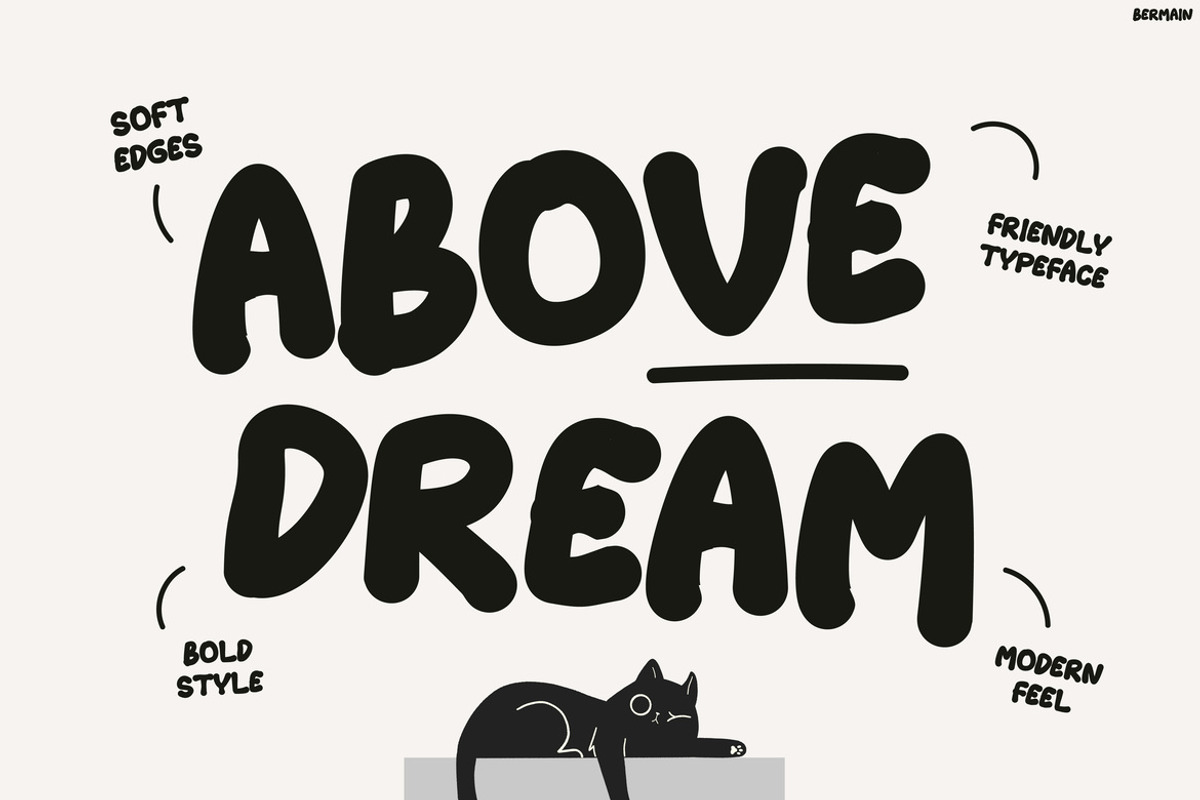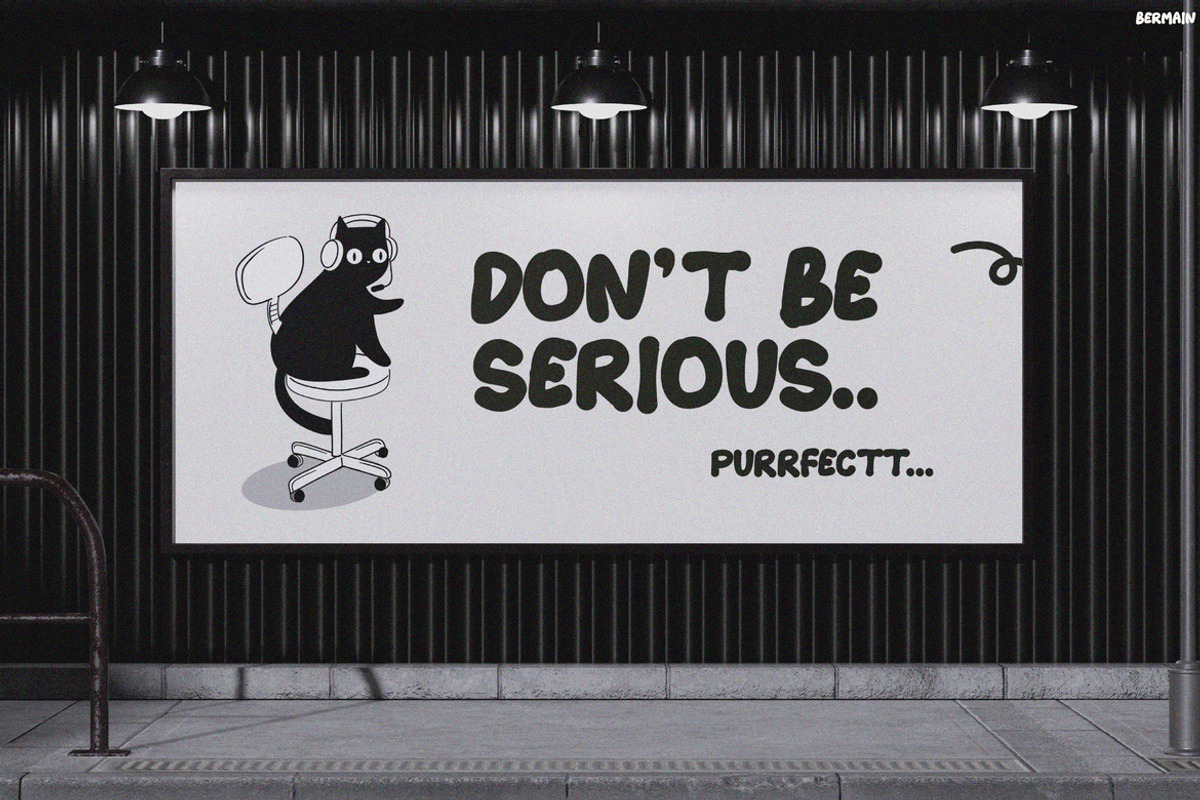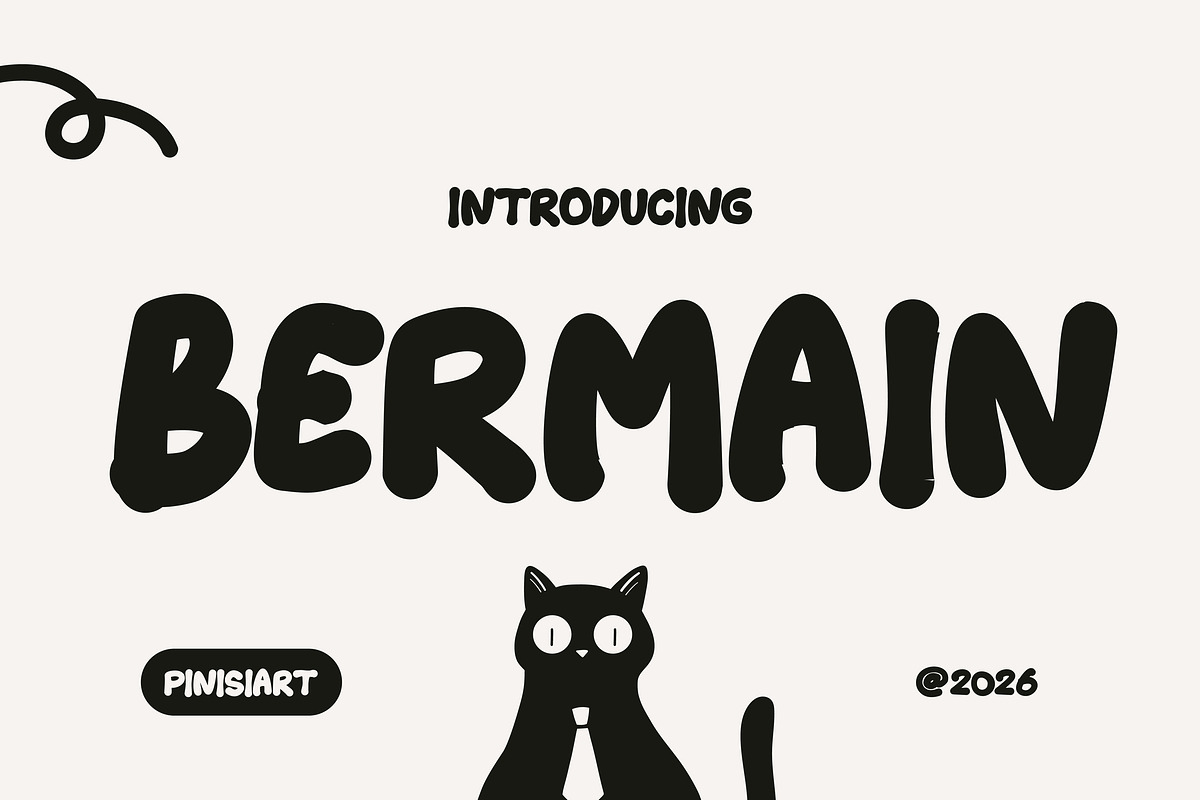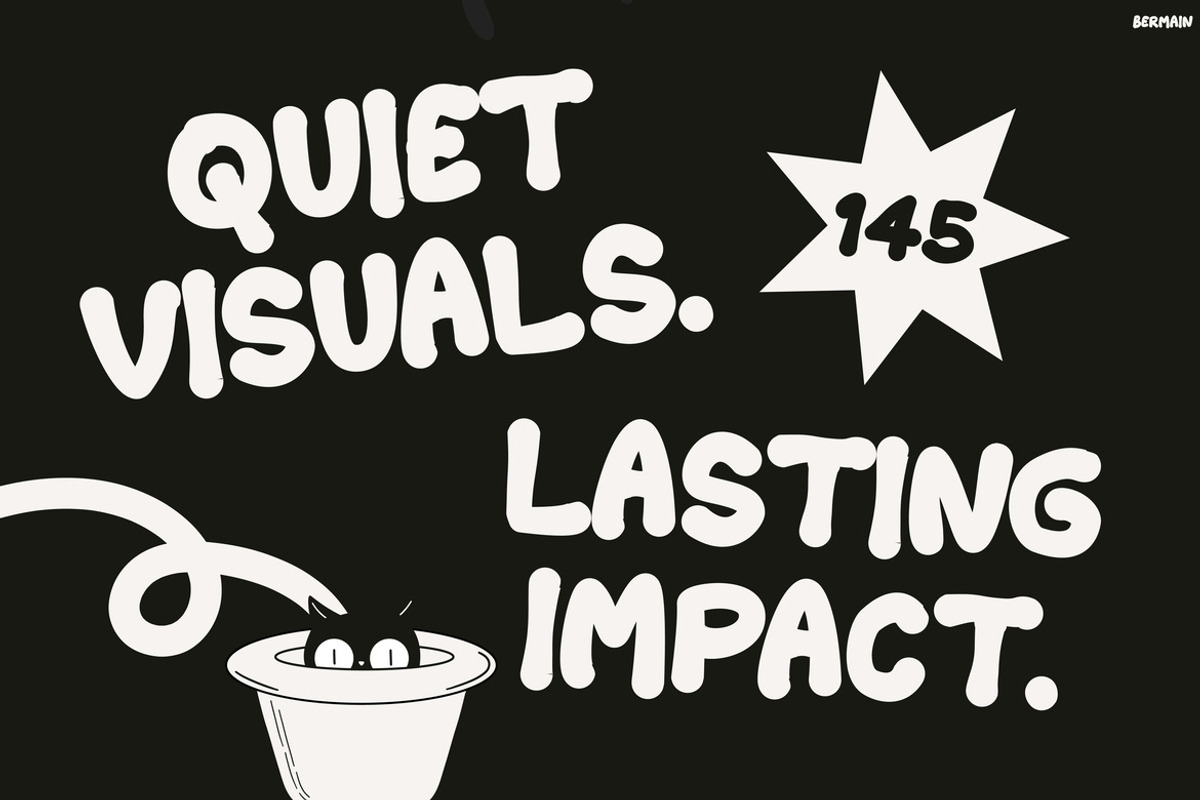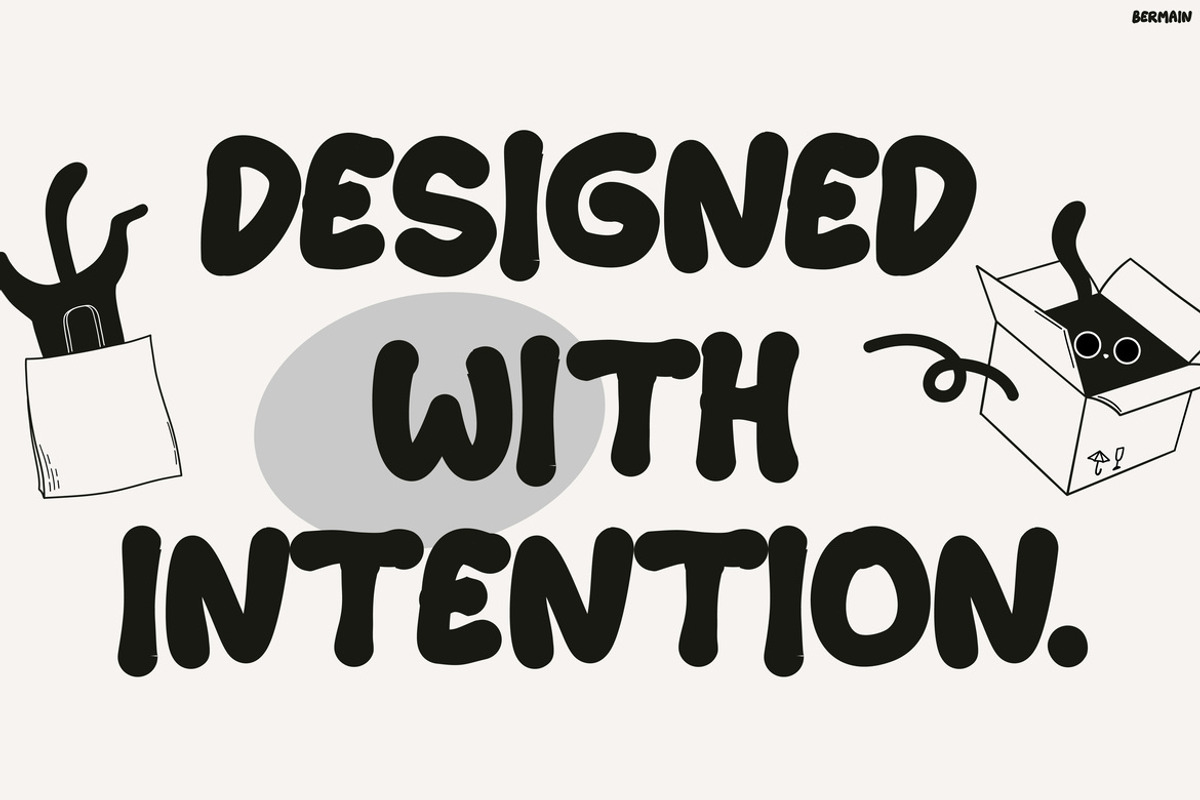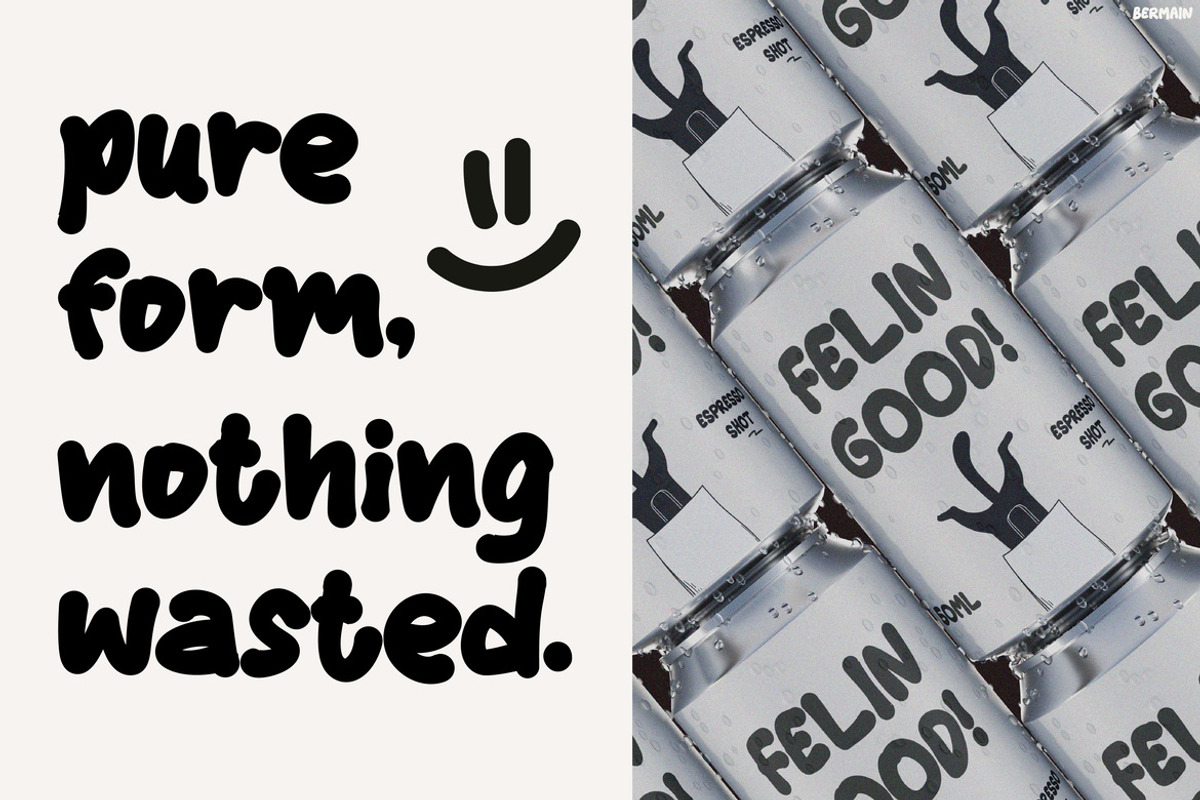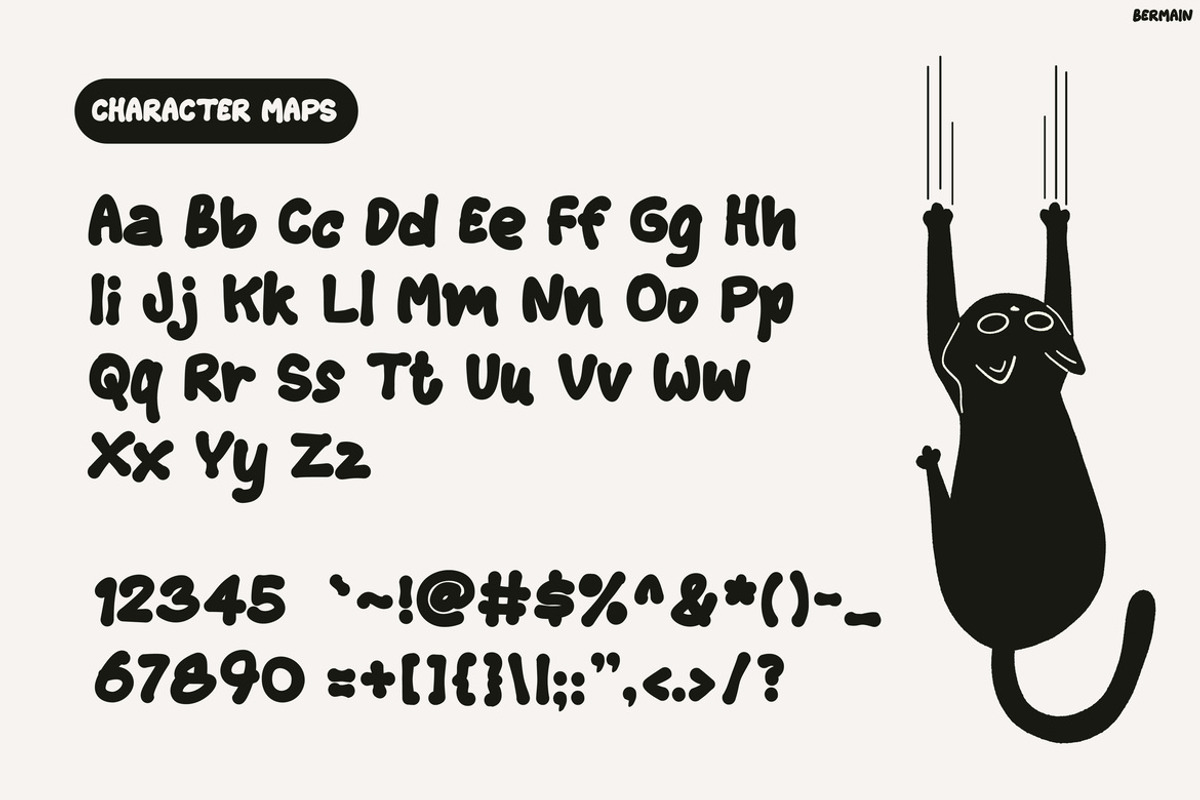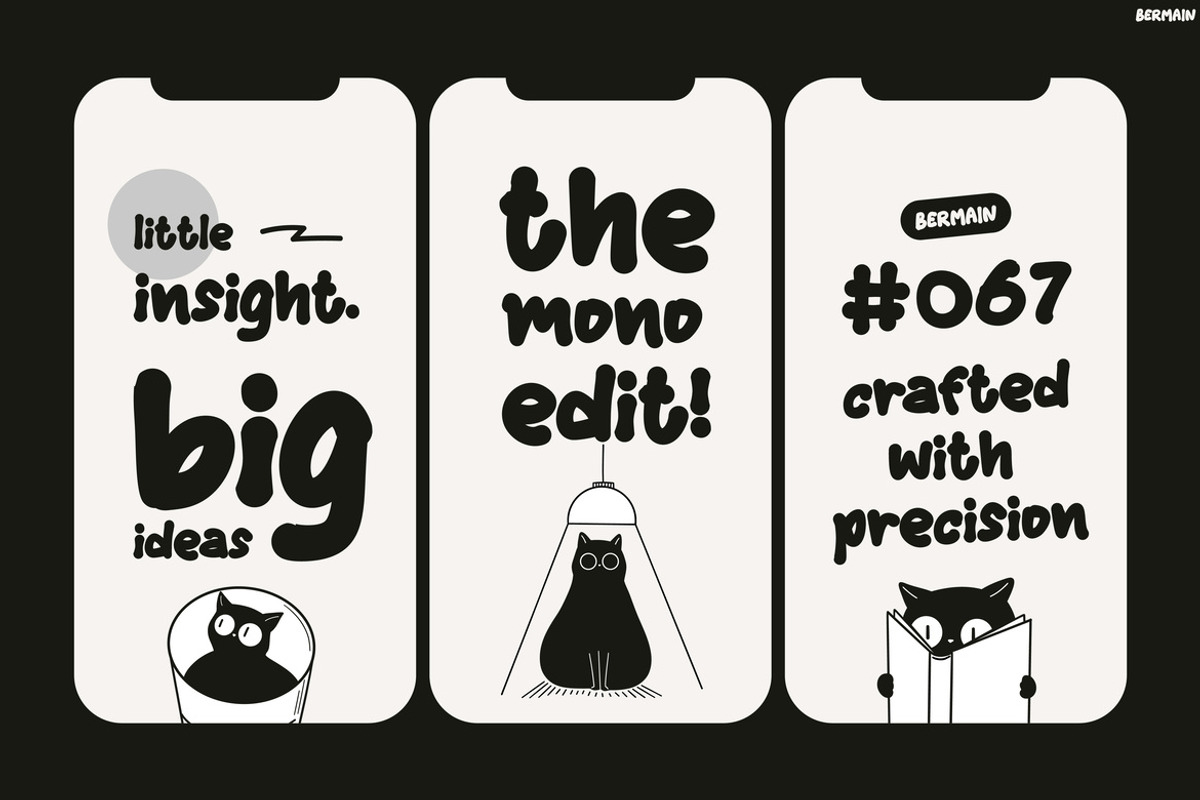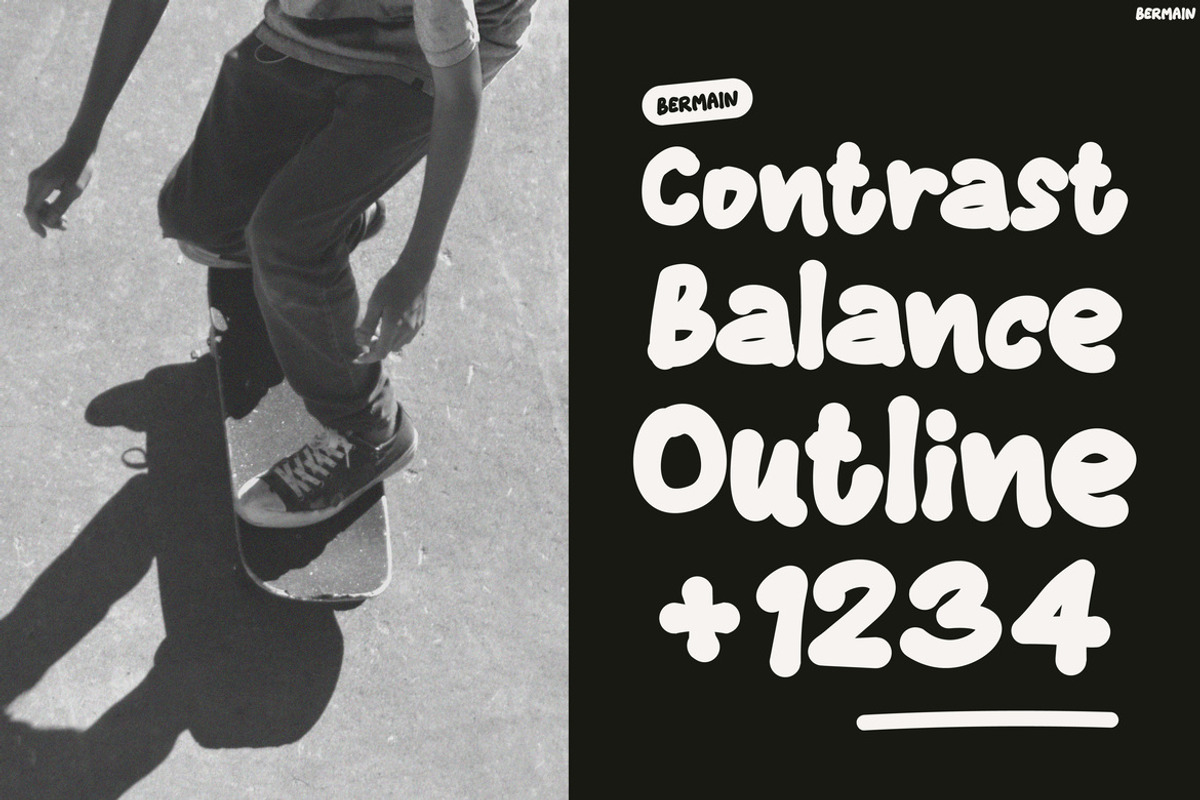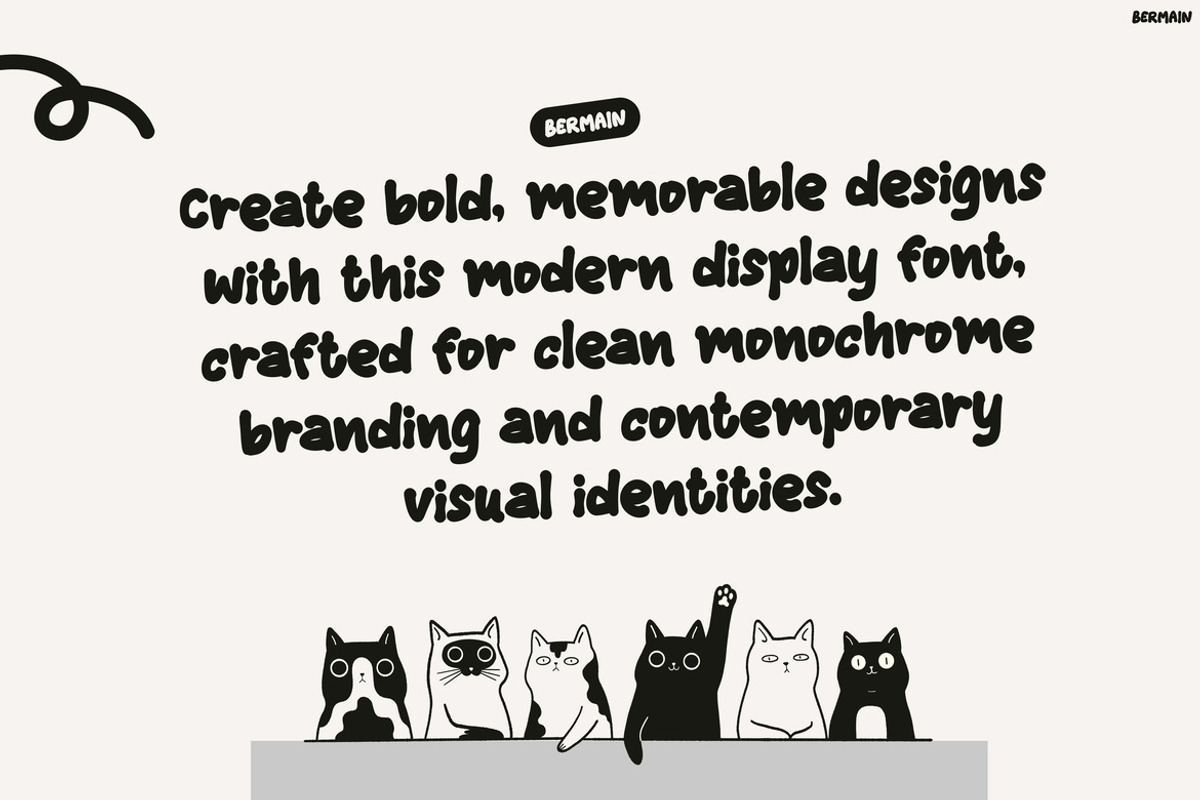
Bermain
Bermain – Create Loud, Fun & Memorable Designs with Every Letter
Kids Font Bermain is a bold display font with chunky letterforms, soft rounded edges, and playful proportions. Inspired by childhood imagination, it delivers a friendly yet confident personality. Moreover, every character is designed to feel expressive and full of energy. At the same time, the thick strokes keep every word clear and readable. As a result, your headlines stand out across both print and digital media. Whether you are creating branding, posters, or packaging, Bermain adds a cheerful and modern touch. In addition, its playful style blends perfectly with colorful illustrations and simple layouts. Therefore, every design feels more engaging, memorable, and inviting.